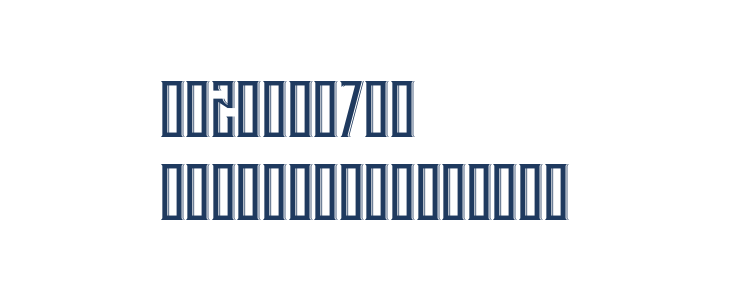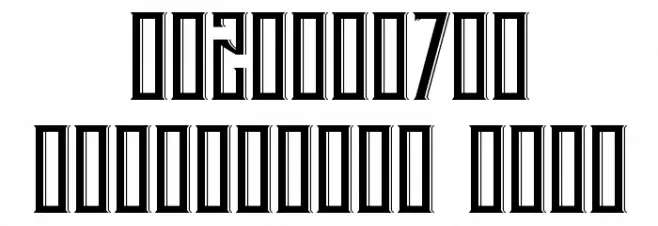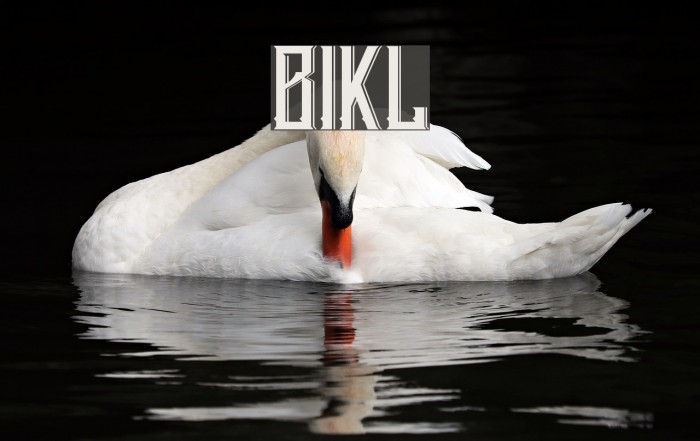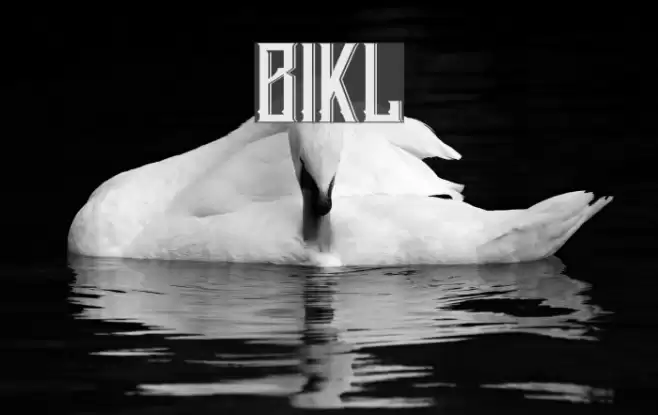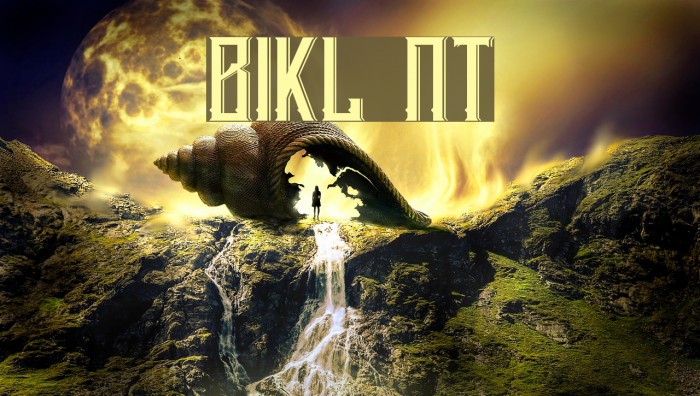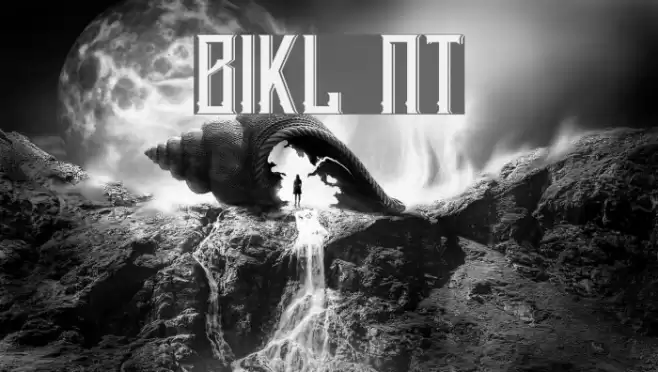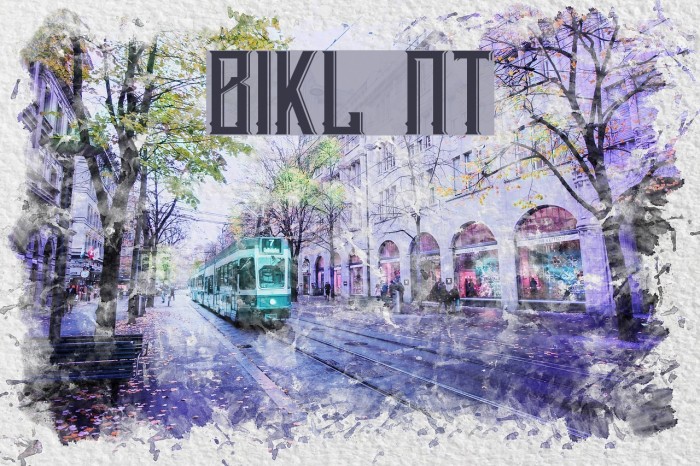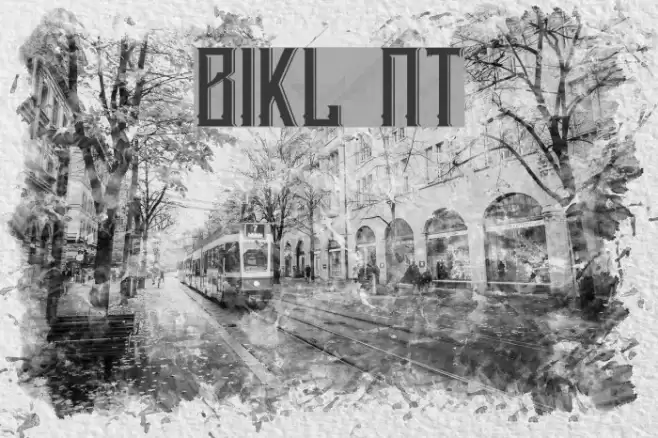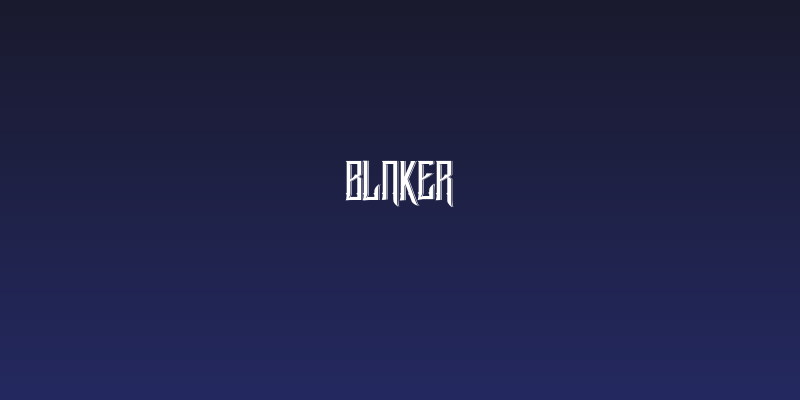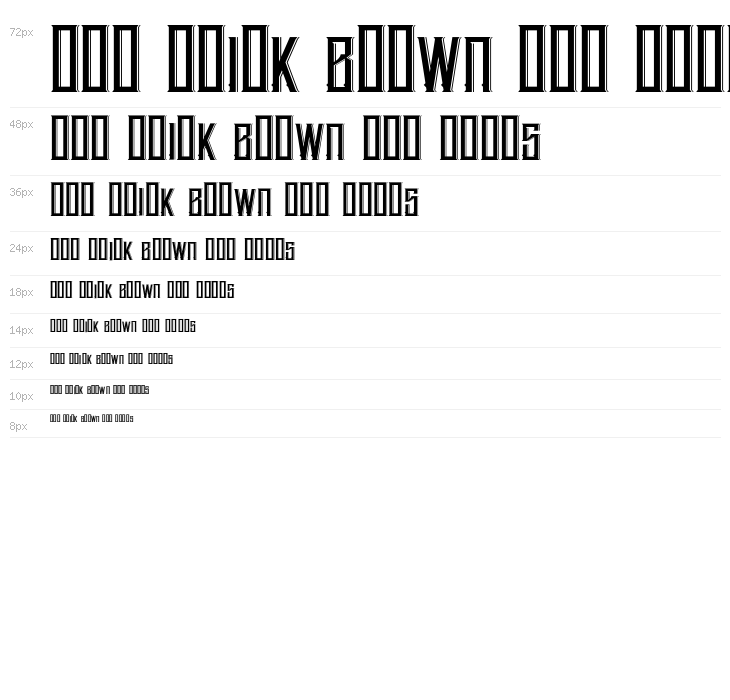
Blnker Font
Blnker Description
This font features a bold and dramatic style with sharp, angular edges and a distinctively modern appearance. The characters are tall and narrow, creating a striking and imposing presence. The design incorporates unique cutouts and pointed serifs that add a touch of elegance and sophistication. The overall look is both futuristic and slightly gothic, making it suitable for projects that require a strong visual impact. The font's high contrast between thick and thin strokes enhances its readability while maintaining its decorative appeal.
| Overall Style | Modern, Gothic |
| Use Case | Logos, Posters, Headlines |
| Proposed Projects | Ideal for use in branding, posters, album covers, and any project needing a bold, eye-catching typeface. |